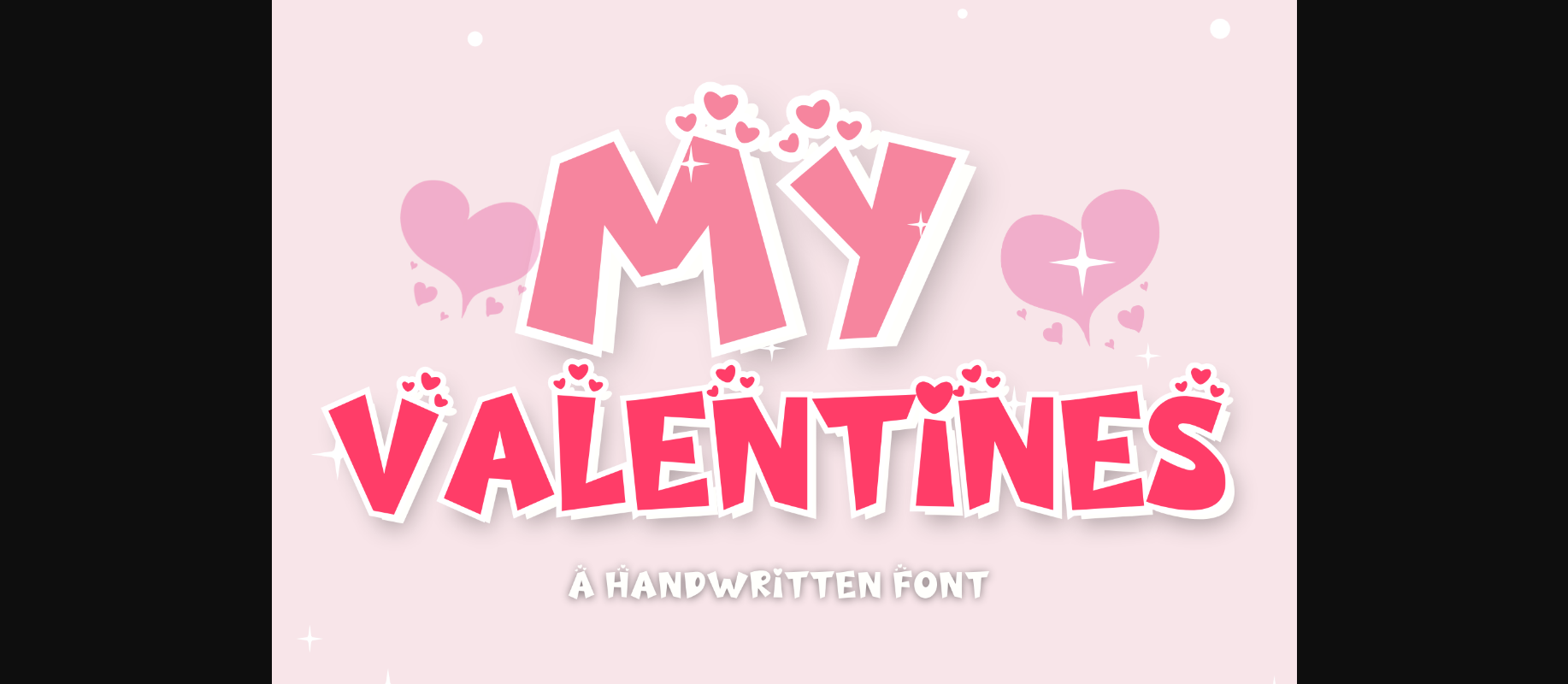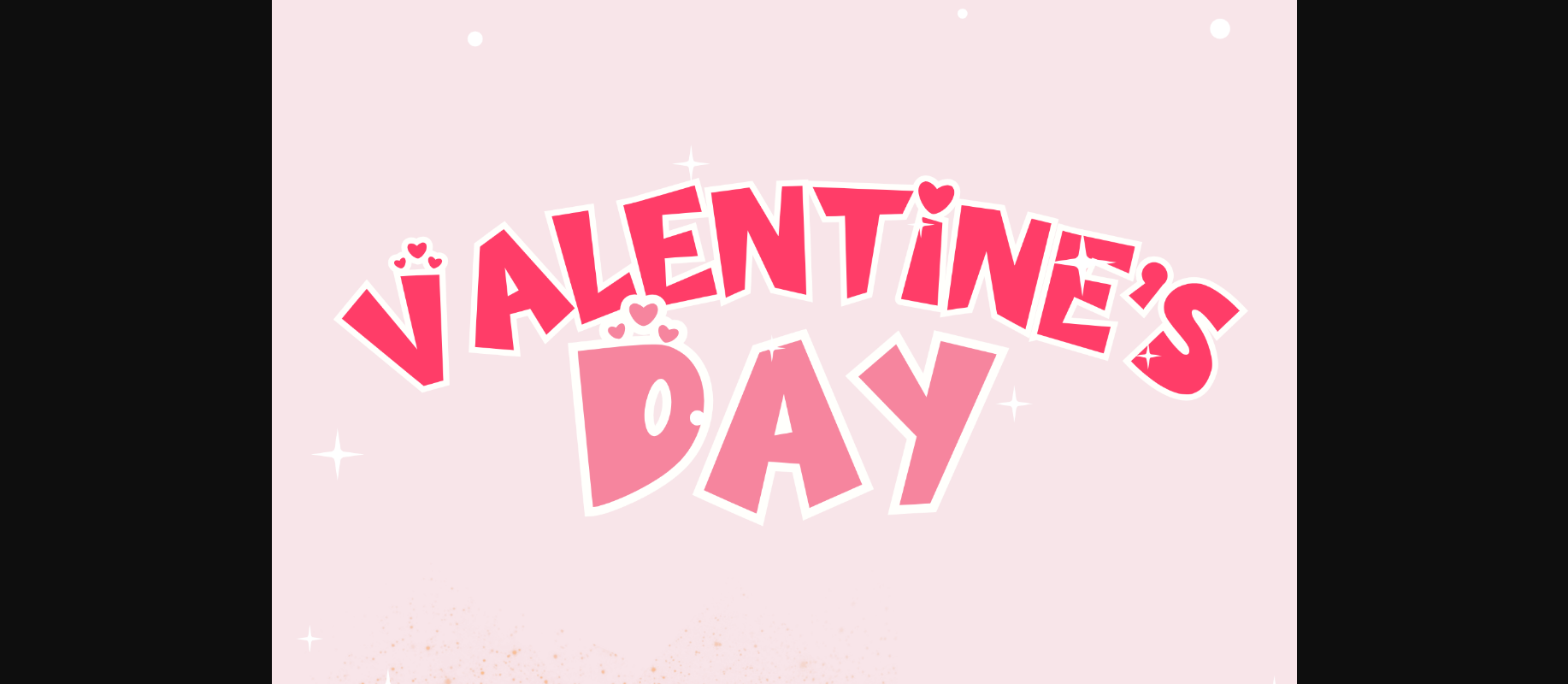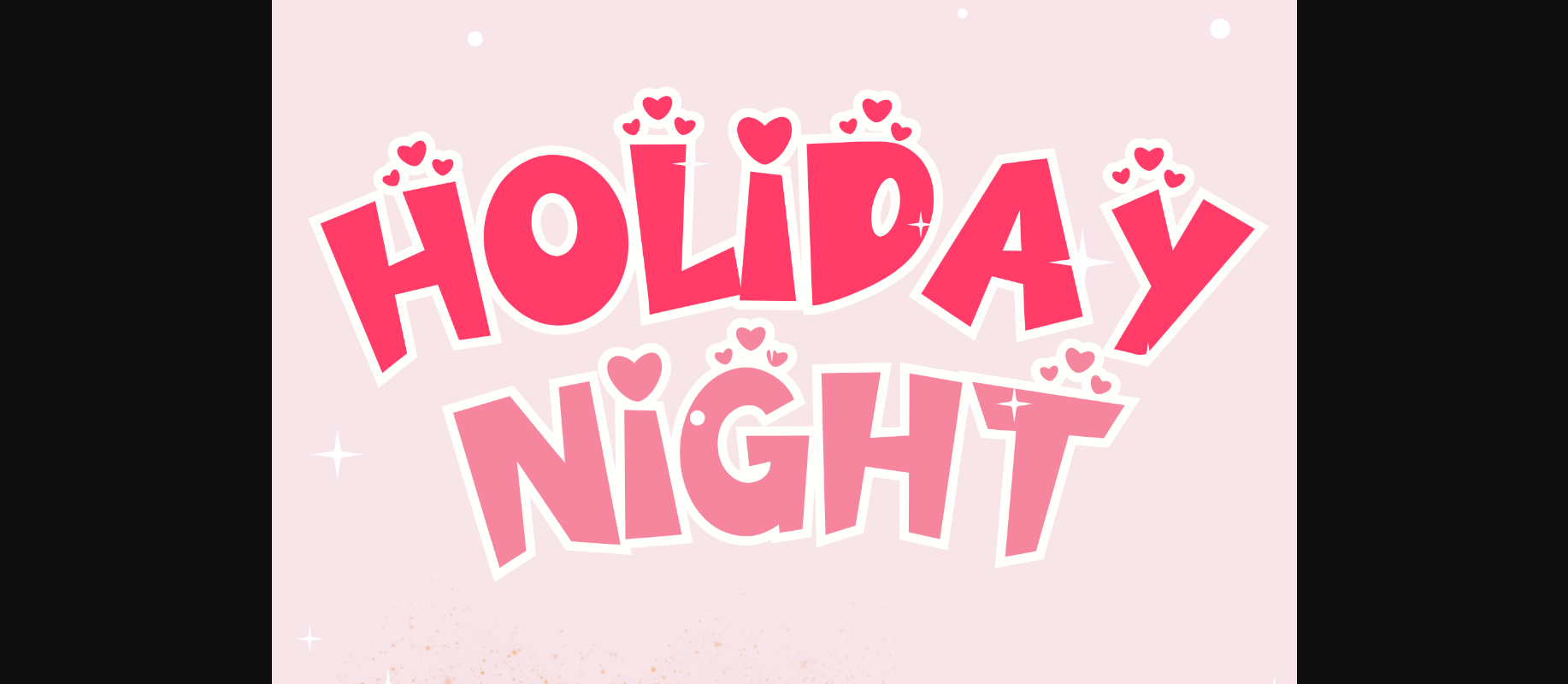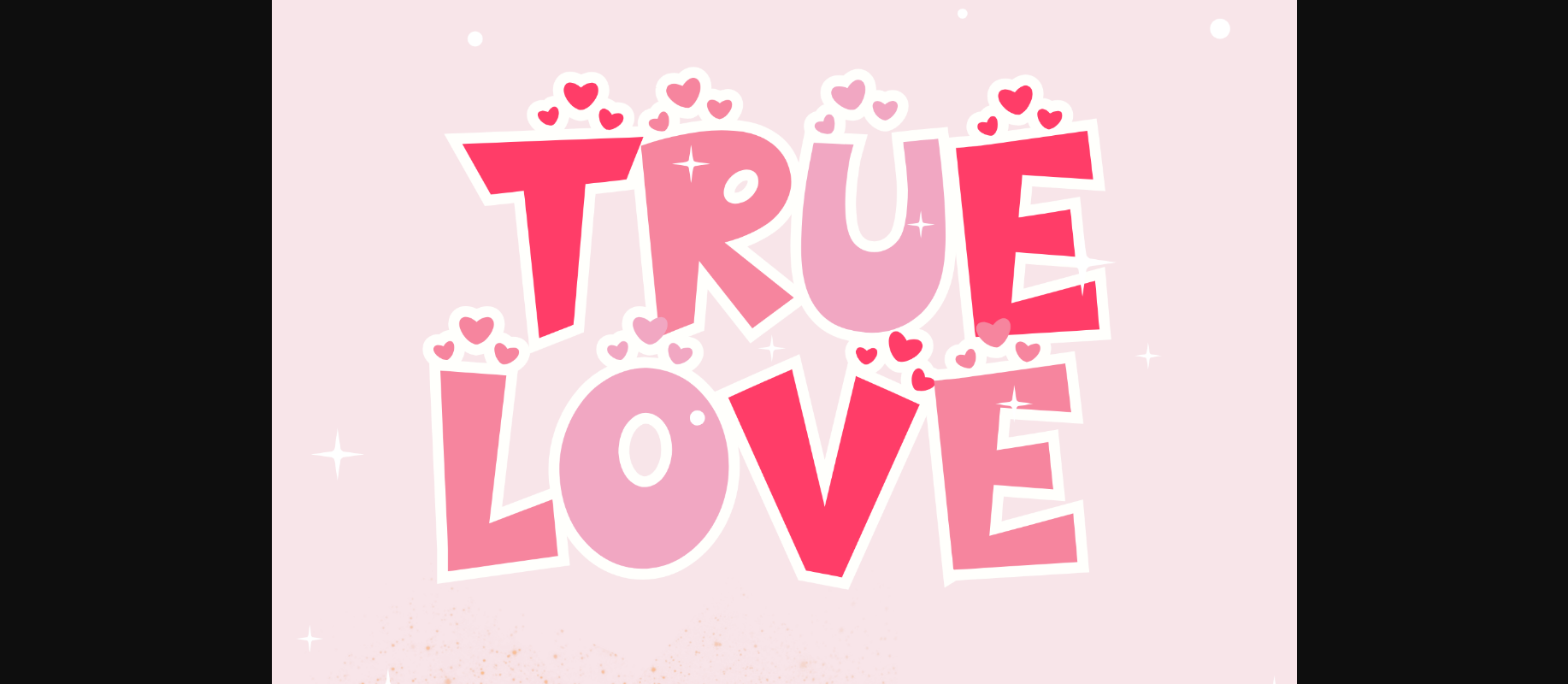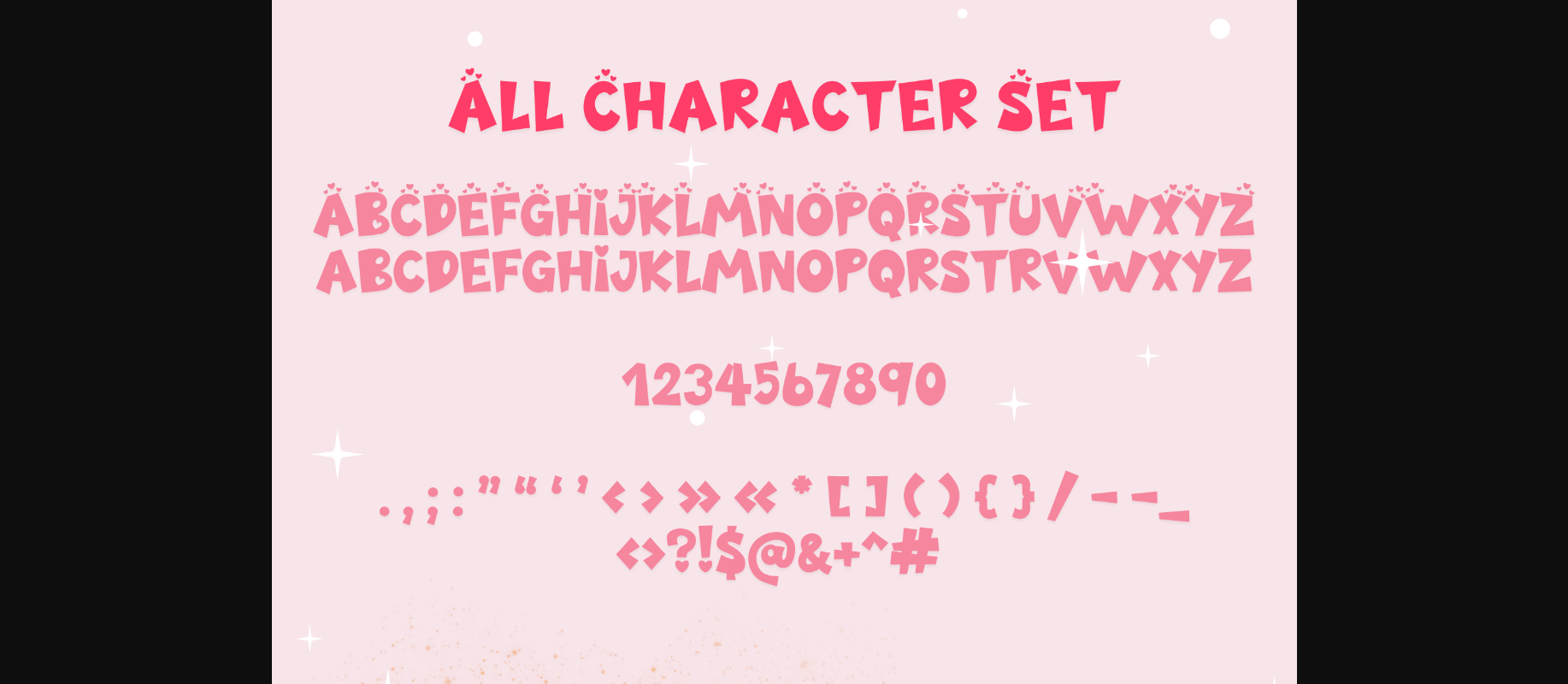
About My Valentines Font
My Valentines is a cute handwritten decorative font. It embodies playfulness and authenticity and is the perfect choice for all your favorite projects, or even for blog posts, logos, branding, ads, invitations, greeting cards, planners, photo albums, decorations, and much more. Add it to any of your designs, and enjoy the results!